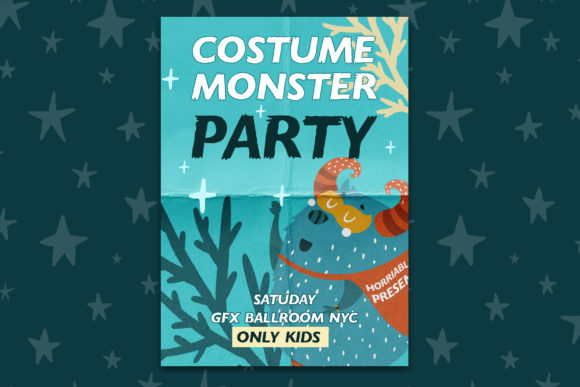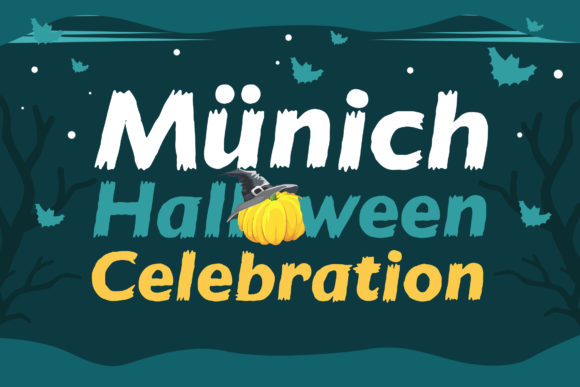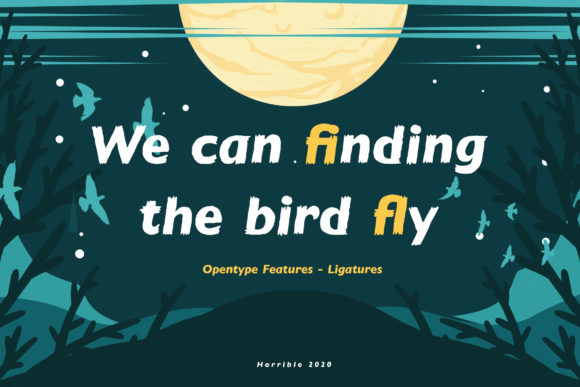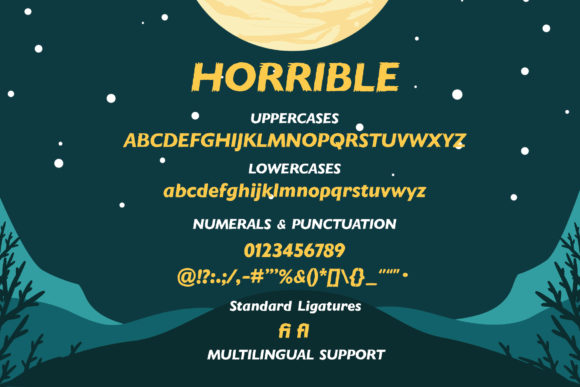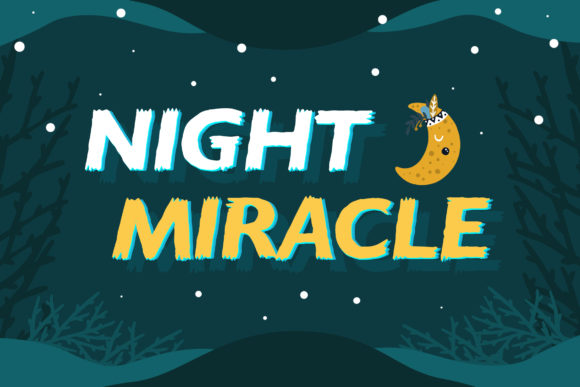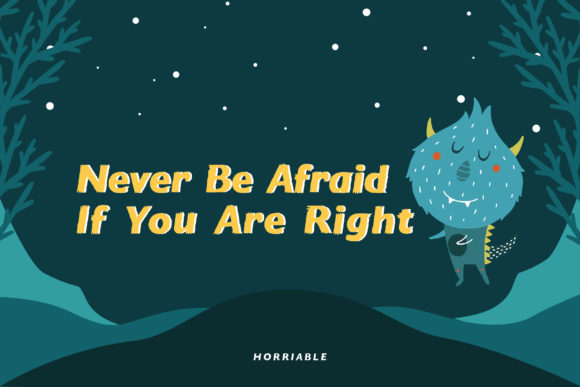
Unleashing Your Inner Creativity with Horrible Font
We’ve all been there – staring at a blank page, trying to come up with the perfect idea, but nothing seems to spark. But what if you had the right tool to bring your creativity to life? For designers, finding the perfect font can be the difference between a good project and a great one. That’s where Horrible Font comes in – a bold and chunky lettered display font designed to make your ideas stand out.
Horrible Font is more than just a font, it’s a statement piece that adds character and personality to any project. Whether you’re designing a logo, creating a social media graphic, or crafting a unique headline, Horrible Font is the perfect addition to take your work to the next level. With its bold and playful style, Horrible Font is a valuable asset for any designer looking to add some edge to their creative ideas.
Horrible Font Key Features
- Font Family: A sans-serif font with a distressed, rough texture.
- Character Set: Supports a wide range of languages, including Latin, Cyrillic, and Greek.
- Unique Characteristics: Features a unique, hand-drawn feel with intentional imperfections and texture.
Horrible Font Review
Overall, I have mixed feelings about this font. While it has some redeeming qualities, it’s also got some deal-breakers.
- Unique style: Horrible Font certainly stands out from the crowd. Its quirky, hand-drawn aesthetic can add a touch of personality to designs.
- Expressive: This font is great for conveying emotions, particularly negative ones. If you’re trying to create a sense of tension or unease, Horrible Font can be an effective choice.
- Customization options: The font includes a range of weights and styles, allowing designers to tailor the look to suit their needs.
- Lack of legibility: Unfortunately, the font’s unique style can make it difficult to read, particularly at smaller sizes.
- Overuse: The font’s eccentricity can quickly become grating if overused. It’s best to use it sparingly to avoid overwhelming the viewer.
- Compatibility issues: I experienced some problems with compatibility across different platforms and devices, which can be frustrating.
Overall, Horrible Font is a polarizing choice. While it can add a unique touch to designs, its limitations may make it less suitable for certain projects. Use it wisely and with caution.
Getting the Most Out of Horrible Font
For optimal results, use Horrible Font in bold and italic styles to create a dramatic effect. Pair it with bold colors and creative layouts to make your design stand out.
Horrible Font is ideal for:
- Creating eye-catching headlines and titles.
- Adding a touch of humor or irony to your design.
- Creating a retro or vintage look.